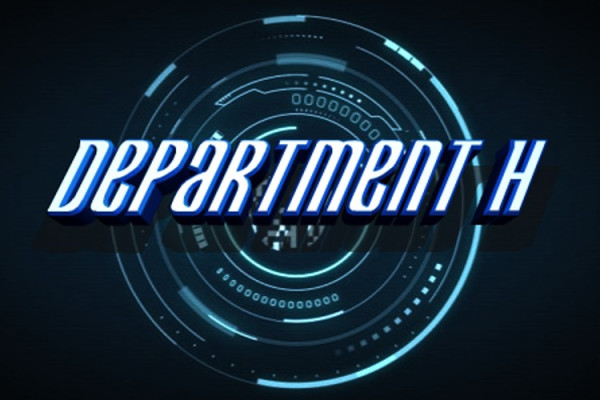
Department H Font
Department H Font, This bundle features strong, confident and powerful typefaces designed to work great with sports logos, club branding, apparel applications, labels and more.